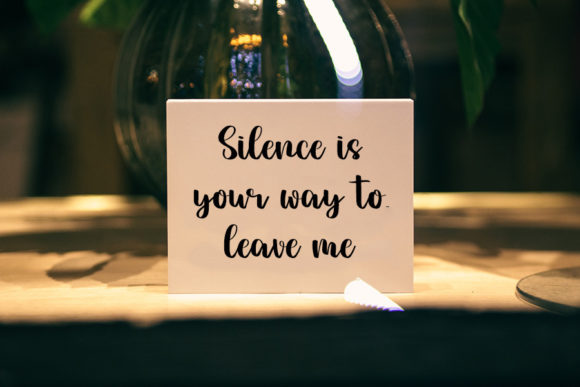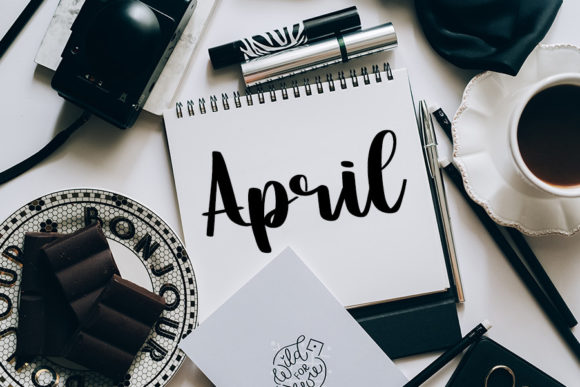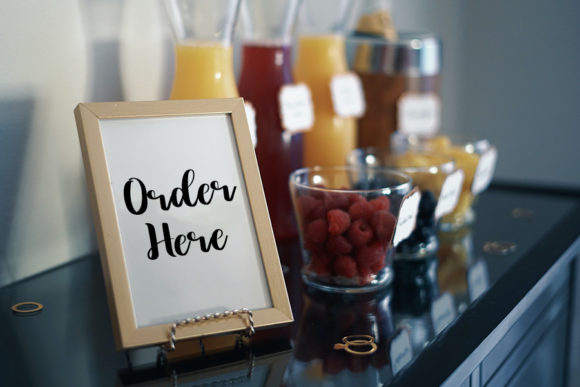
Introduction to Magic Shop Font
Have you ever stumbled upon a font that sparks your creativity and leaves you wanting more? For designers, discovering a new font can be a thrilling experience, and that’s exactly what happens when you come across the Magic Shop Font. This lovely handwritten font is a game-changer for any creative project, from product packaging to magazine covers and social media graphics.
With its elegant and curvy lines, the Magic Shop Font is a high-quality design resource that can elevate your work and make it stand out from the crowd. Whether you’re working on a branding project or need a font to express words above a transparent background, this font is sure to impress. The best part? It’s free to download and use, making it an invaluable resource for designers looking to add a touch of magic to their work.
Key Features of Magic Shop Font
- High-quality design for creative projects, including advertisements, posters, and more.
- Includes 6 unique fonts with a magical theme, perfect for a fantasy or mystical design resource.
- Each font has 6 styles, including bold, italic, and regular, to add variety to your design.
Honest Review: Magic Shop Font
I recently came across the Magic Shop Font and was excited to dive in and explore its features. As a designer, I’m always on the lookout for high-quality design resources that can elevate my creative projects.
Here’s what works well: ✨ The Magic Shop Font offers a free download, which is a huge plus for designers working on a budget. The font is also incredibly versatile, with a wide range of styles and weights that can be used for various design applications. The transparent background is a nice touch, making it easy to overlay text on different images or backgrounds.
As for limitations: ⚠️ The font is a bit limited in terms of its character set, which may not be suitable for long-form content or complex text-based projects. Additionally, the font’s aesthetic may not be to everyone’s taste, so it’s essential to consider your target audience and design goals before using it.
Overall, I think the Magic Shop Font is a great addition to any designer’s toolkit. While it may have some limitations, its high-quality design and versatility make it a valuable resource for creative projects.
Pros:
- Wide range of styles and weights
Cons:
- Limited character set
- Aesthetic may not appeal to all
Tips for Getting the Most Out of Magic Shop Font
Experiment with different font sizes, colors, and styles to find the perfect combination for your design. Use the font in conjunction with a transparent background to create a sense of depth and visual interest.
The Magic Shop Font is ideal for use in creative projects such as logos, brochures, posters, and social media graphics. Its high-quality design and transparent background make it a versatile and effective design resource.